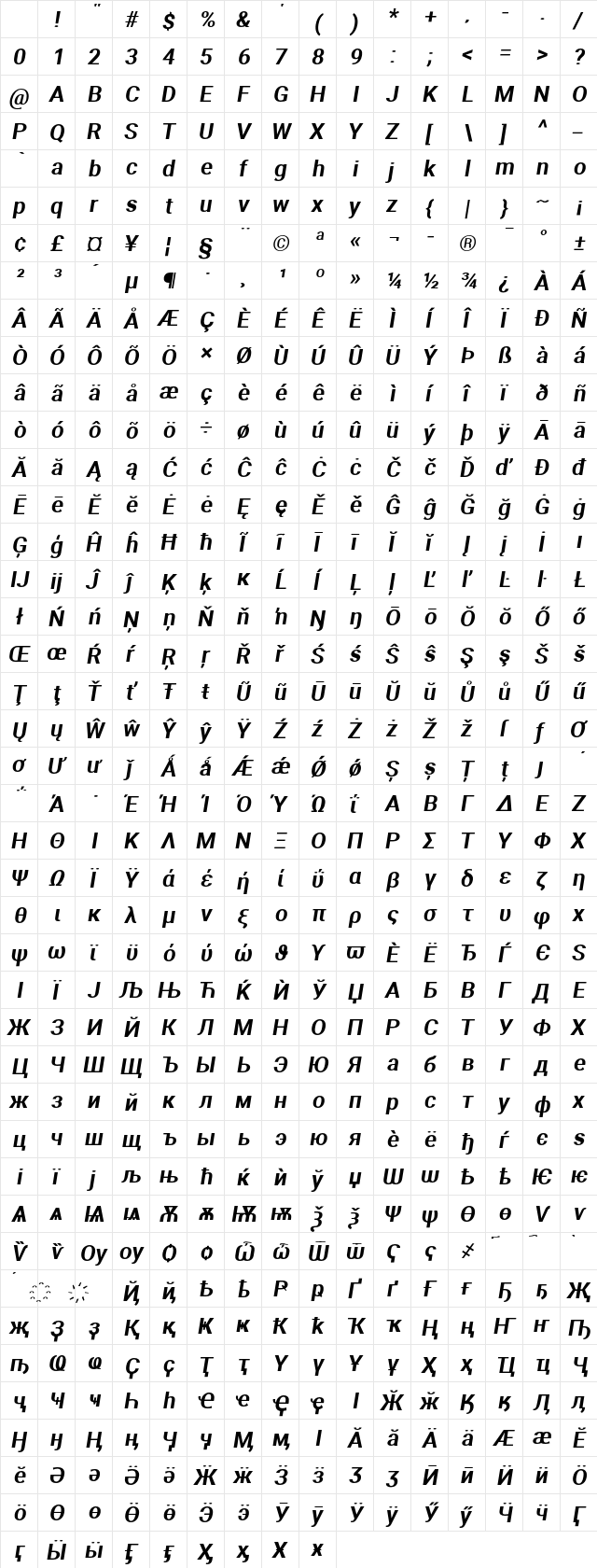
Complete Aerodynamic Obl glyph index. Displaying only characters natively supported by Aerodynamic Obl font.
Aerodynamic is a composed and adaptable typeface that performs quietly and consistently across a wide range of design contexts.